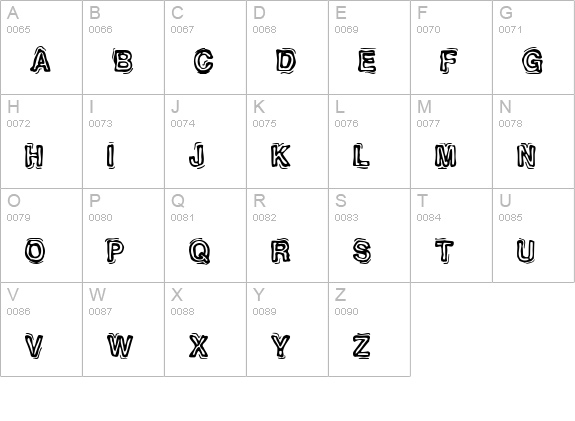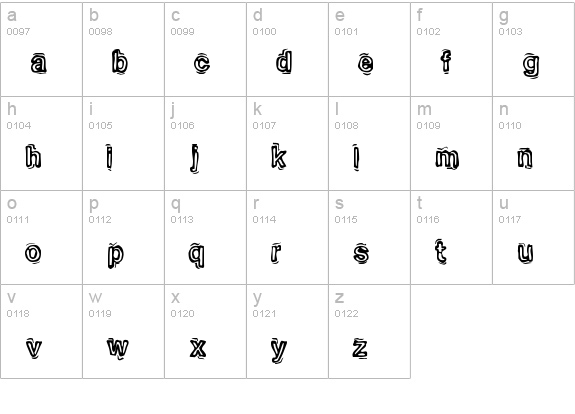
Motherlode Stripped AOE Font Details
Motherlode Stripped AOE is a striking and versatile font that combines elegance with a touch of boldness. Its unique stripped design adds a modern twist to any project, making it stand out from the crowd. This font is perfect for a wide range of creative applications, from branding to packaging and everything in between. The best part? Motherlode Stripped AOE is completely free to download at FontsMarket.com, allowing you to enhance your designs without breaking the bank. Whether you're a seasoned designer looking to add a fresh element to your work or a newcomer exploring the world of typography, this font is sure to inspire and impress. Don't miss out on the opportunity to elevate your designs with Motherlode Stripped AOE - download it today and let your creativity shine!